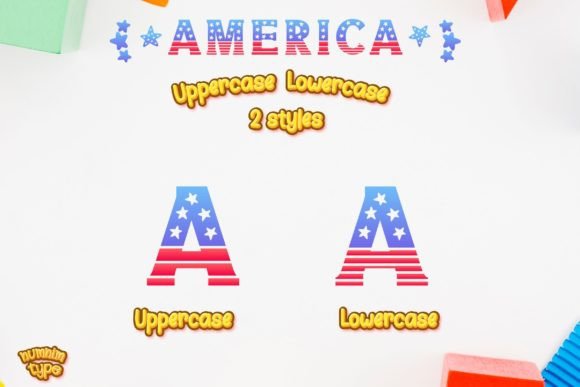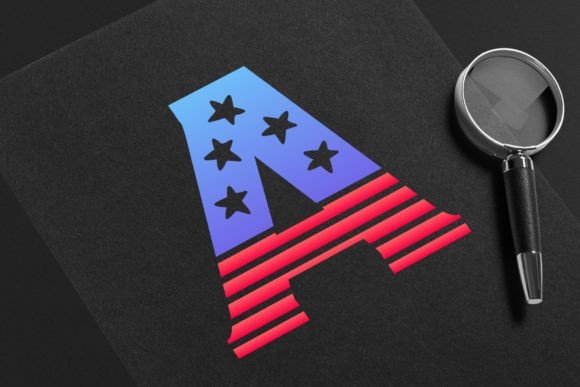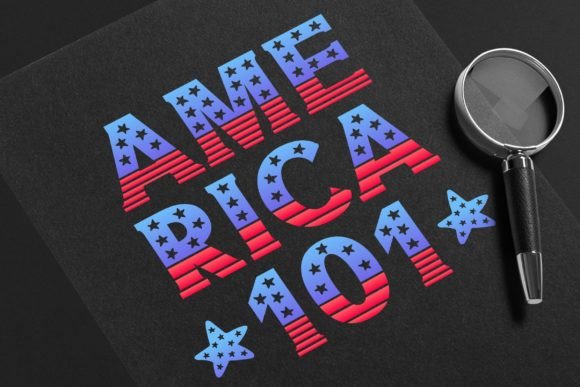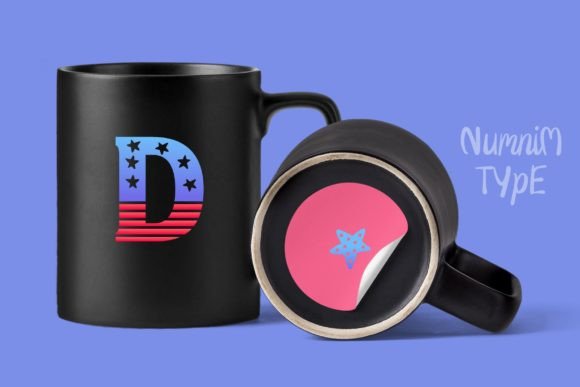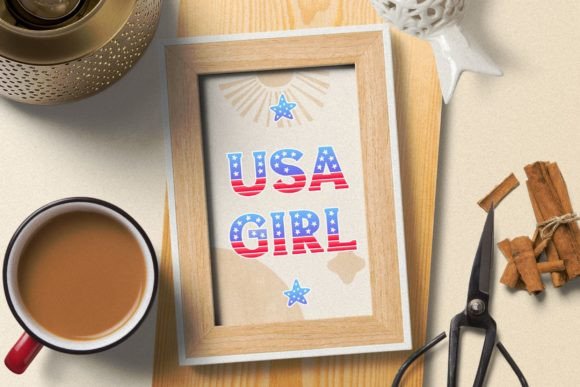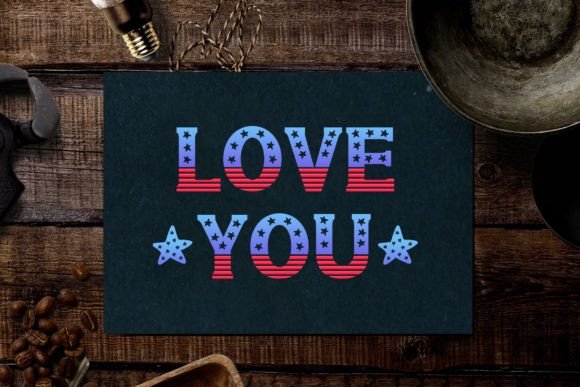
Introducing America Font: The Ultimate Patriotic Color Font for Designers and Crafters
Are you looking for a font that screams patriotism and fun? Look no further than America Font! This uniquely crafted color font is perfect for designers and crafters who want to add a touch of American spirit to their projects. In this article, we’ll dive into the features and benefits of America Font, and explore how you can use it to create stunning designs for various occasions.
What is America Font?
America Font is a cool and uniquely crafted patriotic color font that’s perfect for creating eye-catching designs. Its fun and playful characters make it an ideal choice for a wide range of projects, including stickers, mugs, t-shirts, ornaments, independence day event cards, event invitations, and many more!
Key Features of America Font
- Patriotic color font: America Font is a vibrant and colorful font that’s perfect for creating patriotic designs.
How to Use America Font
America Font is a versatile font that can be used for a wide range of projects. Here are some ideas to get you started:
- Independence Day designs: Create stunning designs for independence day event cards, invitations, and decorations.
- Patriotic stickers and decals: Use America Font to create eye-catching stickers and decals for laptops, water bottles, and more.
- Custom apparel: Design patriotic t-shirts, hoodies, and hats using America Font.
- Ornaments and decorations: Create beautiful ornaments and decorations for your home or office using America Font.
Tips and Tricks for Using America Font
Here are some tips and tricks to help you get the most out of America Font:
- Experiment with different colors: America Font is a color font, so don’t be afraid to experiment with different colors to create unique designs.
- Pair with other fonts: America Font pairs well with other fonts, so feel free to experiment with different font combinations.
America Font is a unique and versatile patriotic color font that’s perfect for designers and crafters who want to add a touch of American spirit to their projects. With its PUA encoding, Opentype-SVG format, and compatibility with popular design software, America Font is a must-have for anyone looking to create stunning patriotic designs.